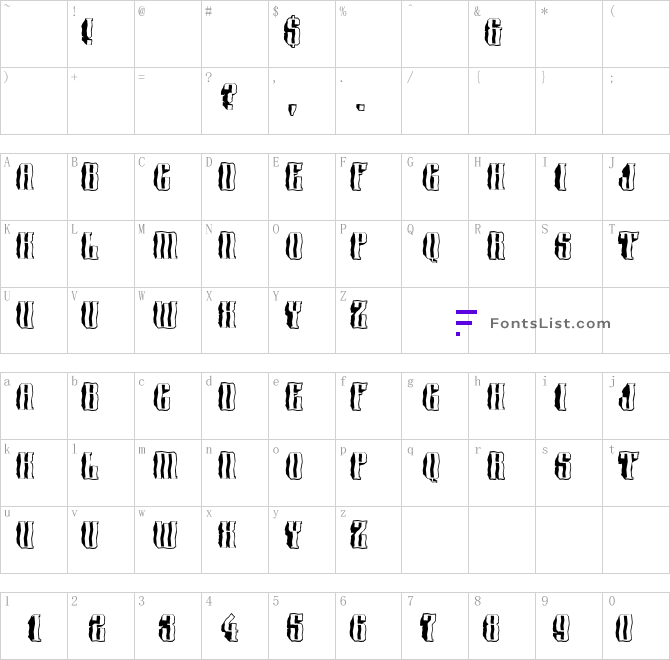
a_Harder3dBroken.ttf is a very beautiful artistic font, a_Harder3dBroken.ttf is widely used in the design and printing of various books and pictures,a_Harder3dBroken.ttf has a strong visual impact,a_Harder3dBroken.ttf is a commonly used font in newspapers, magazines and books, and is used in posters, e-commerce Poster design, store design, logo design, font design and other fields.a_Harder3dBroken.